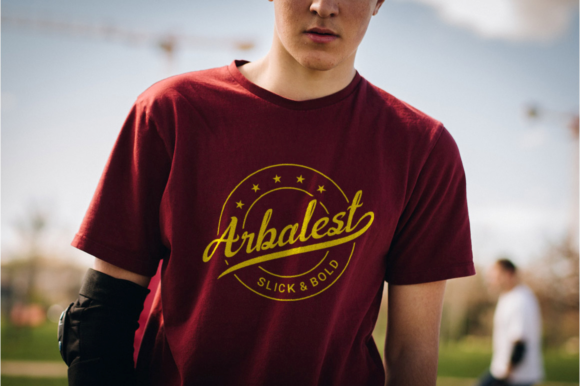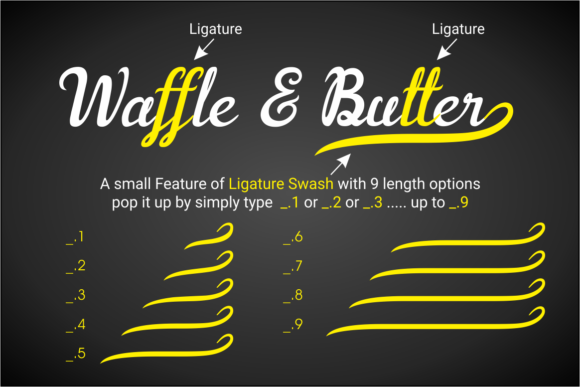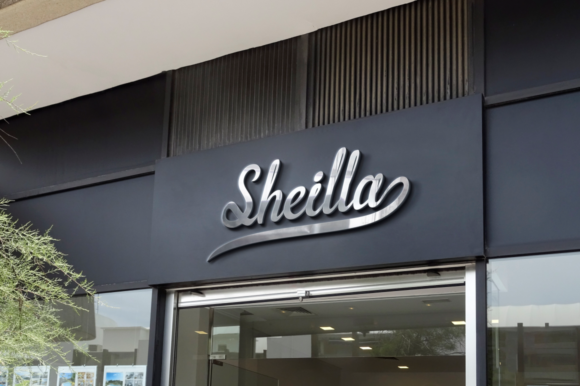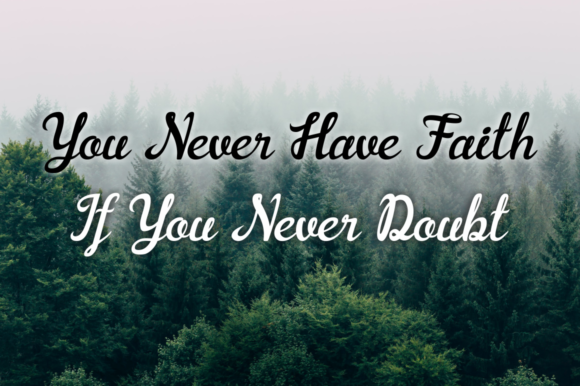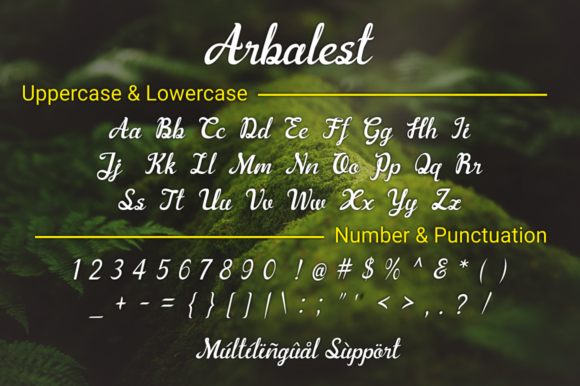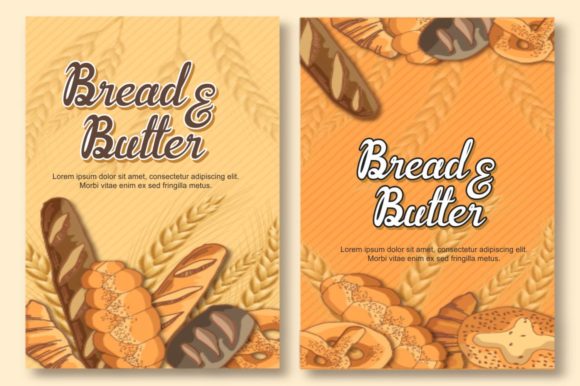
Discover the Unique Charm of Arbalest Font: Elevate Your Designs with its Versatile Style
Are you tired of using the same old fonts in your designs? Look no further than the Arbalest Font, a stunning cursive and distinct handwritten font that is sure to capture your heart. With its well-rounded letters and incredibly versatile style, Arbalest is a masterpiece that can help you create spectacular designs that stand out from the crowd.
What Makes Arbalest Font So Special?
Arbalest Font is a one-of-a-kind font that boasts a unique and elegant cursive style. Its distinct letters are carefully crafted to provide a beautiful and flowing script that is perfect for a wide range of design projects. Whether you’re creating a logo, a poster, a social media graphic, or a website, Arbalest Font is the perfect choice for designers and crafters who want to add a touch of personality to their work.
The Benefits of Using Arbalest Font
So, what makes Arbalest Font so special? Here are just a few benefits of using this amazing font in your designs:
- Versatility: Arbalest Font is incredibly versatile, making it perfect for a wide range of design projects. Whether you’re creating a formal or informal design, Arbalest Font can adapt to any style or theme.
- Unique Style: Arbalest Font has a unique and distinct style that sets it apart from other fonts. Its elegant cursive script is sure to capture the attention of your audience and leave a lasting impression.
- High-Quality: Arbalest Font is a high-quality font that is designed to provide clear and crisp text, even at small sizes.
How to Use Arbalest Font in Your Designs
Using Arbalest Font in your designs is easy. Here are a few tips to get you started:
- Pair it with Other Fonts: Arbalest Font pairs well with other fonts, making it easy to create stunning font combinations. Try pairing it with a bold sans-serif font for a striking contrast.
- Use it for Headings: Arbalest Font is perfect for headings and titles. Use it to create eye-catching headlines that grab the attention of your audience.
- Add it to Your Website: Arbalest Font can add a touch of elegance to your website. Use it for your website’s title, headings, or even body text.
- Experiment with Colors: Arbalest Font looks great in a variety of colors. Experiment with different colors to find the perfect one that matches your brand or design theme.
Who Can Benefit from Using Arbalest Font?
Arbalest Font is perfect for designers, crafters, and anyone who wants to add a touch of personality to their designs. Here are a few examples of who can benefit from using Arbalest Font:
- Graphic Designers: Graphic designers can use Arbalest Font to create stunning logos, posters, and social media graphics.
- Crafters: Crafters can use Arbalest Font to create beautiful handmade cards, scrapbook pages, and other paper crafts.
- Web Designers: Web designers can use Arbalest Font to add a touch of elegance to their websites.
- Small Business Owners: Small business owners can use Arbalest Font to create professional-looking marketing materials, such as brochures, flyers, and business cards.
In conclusion, Arbalest Font is a stunning cursive and distinct handwritten font that is sure to capture your heart. With its incredibly versatile style and well-rounded letters, Arbalest Font is a masterpiece that can help you create spectacular designs that stand out from the crowd. Whether you’re a designer, crafter, or small business owner, Arbalest Font is the perfect choice for anyone who wants to add a touch of personality to their designs.